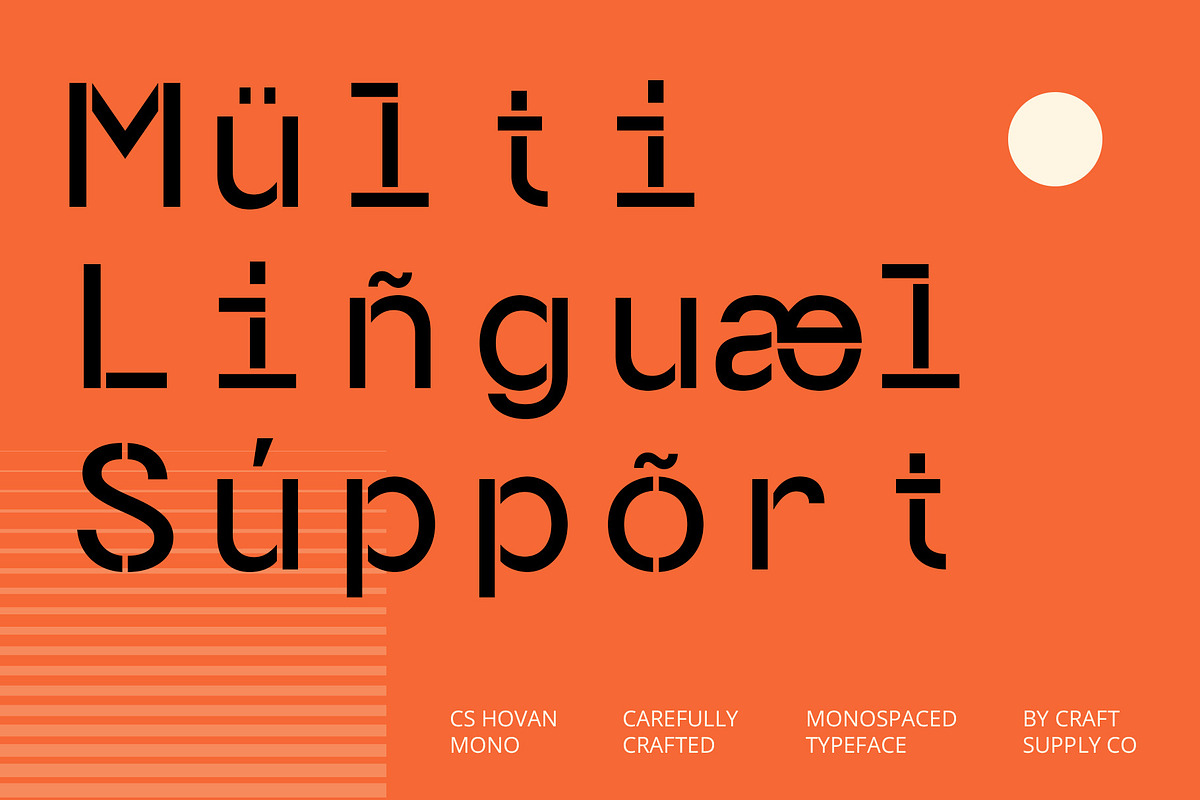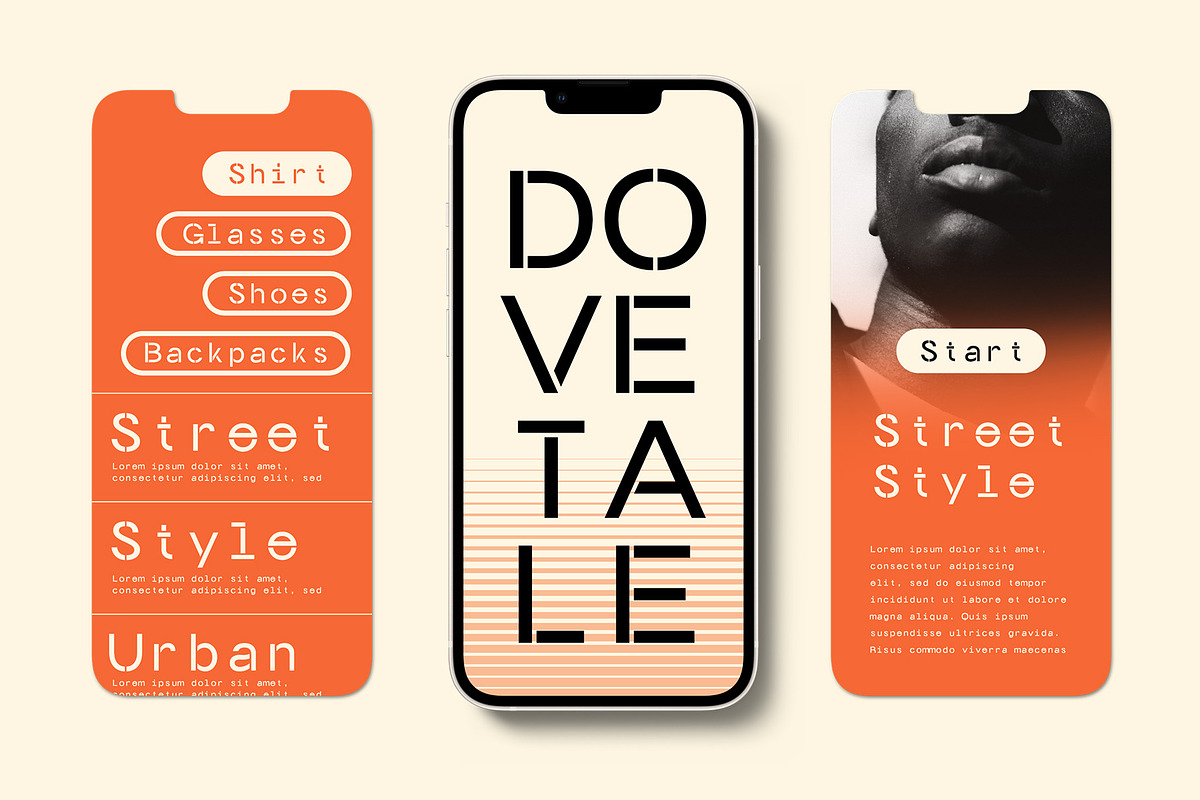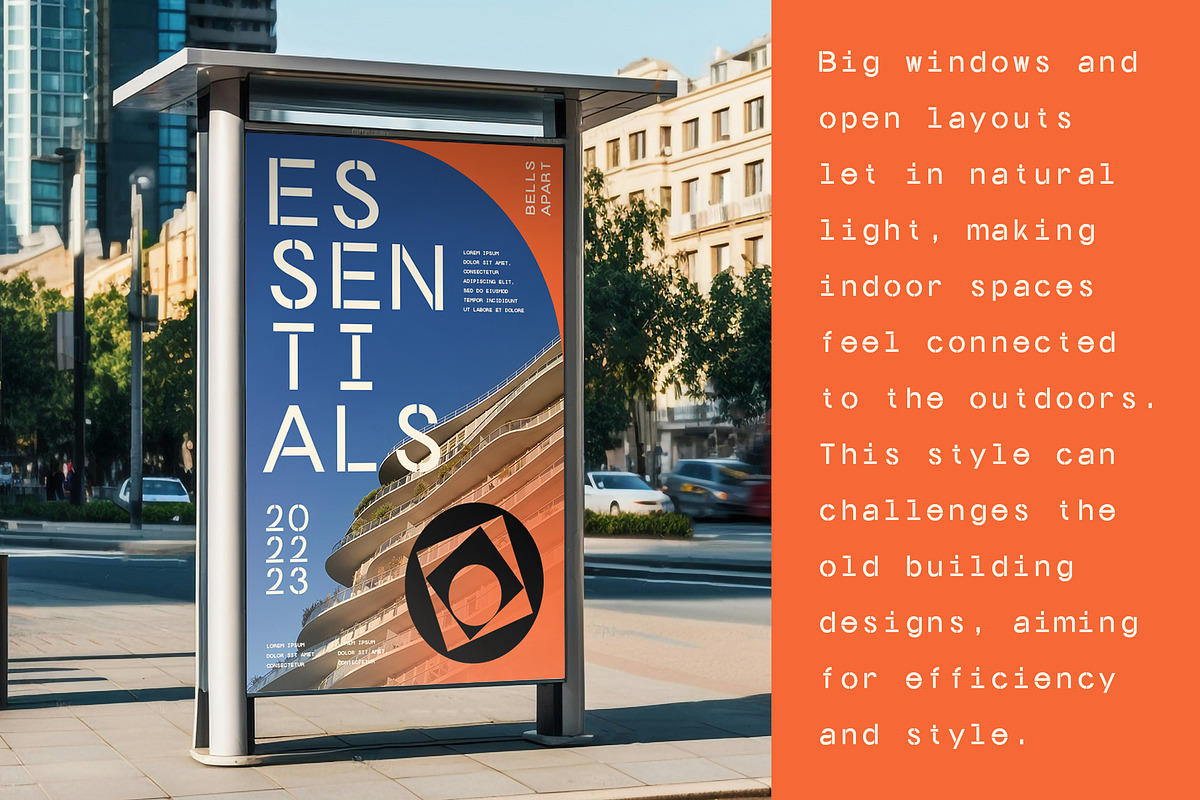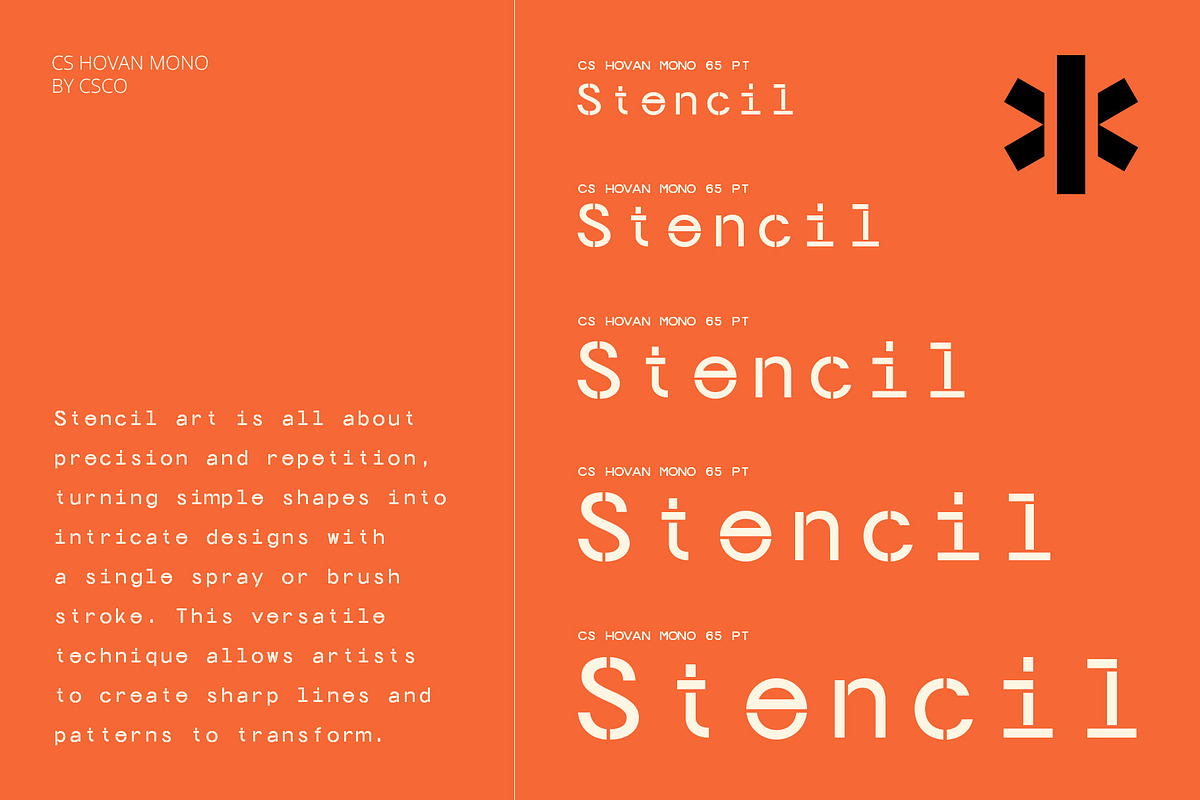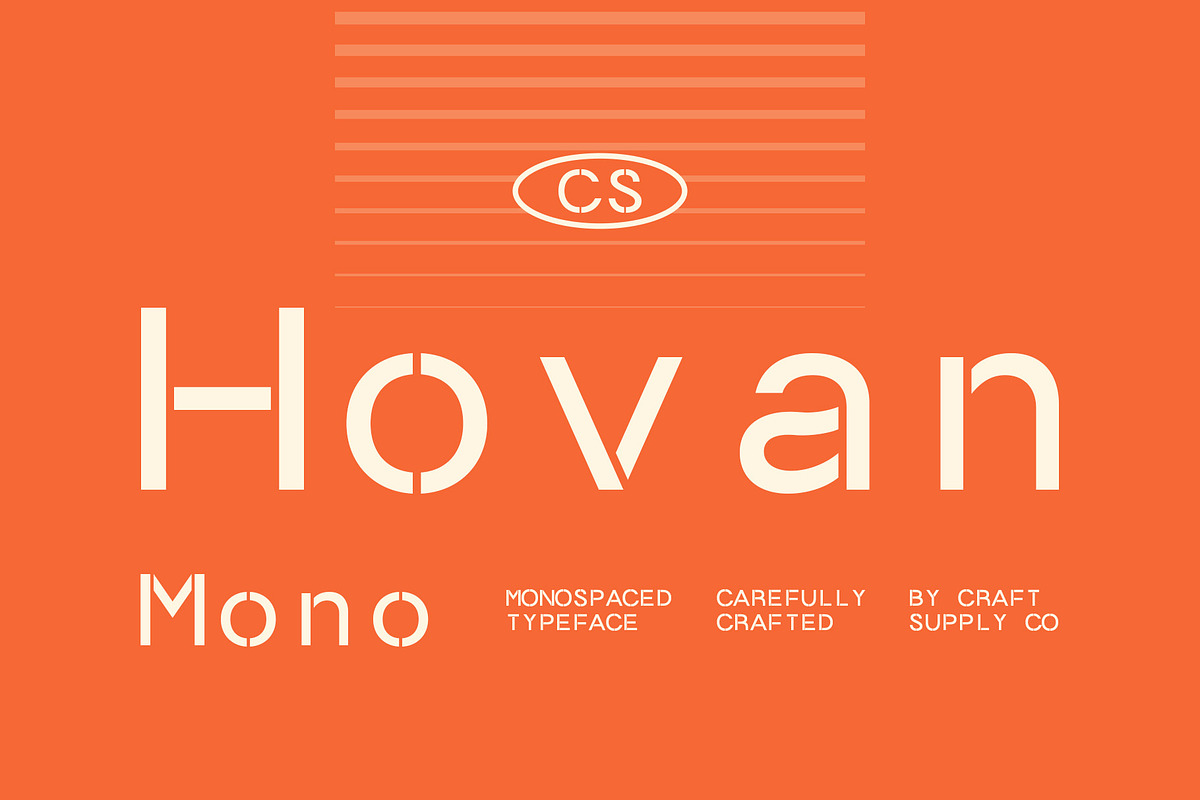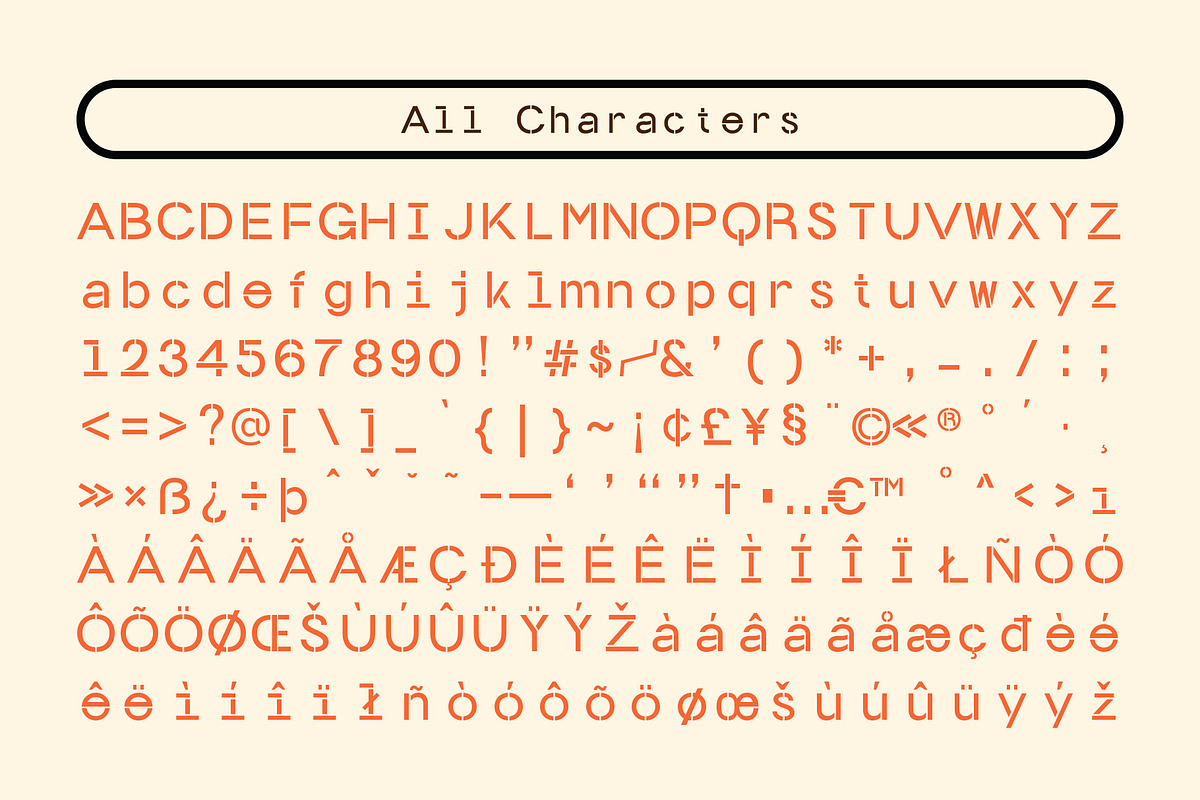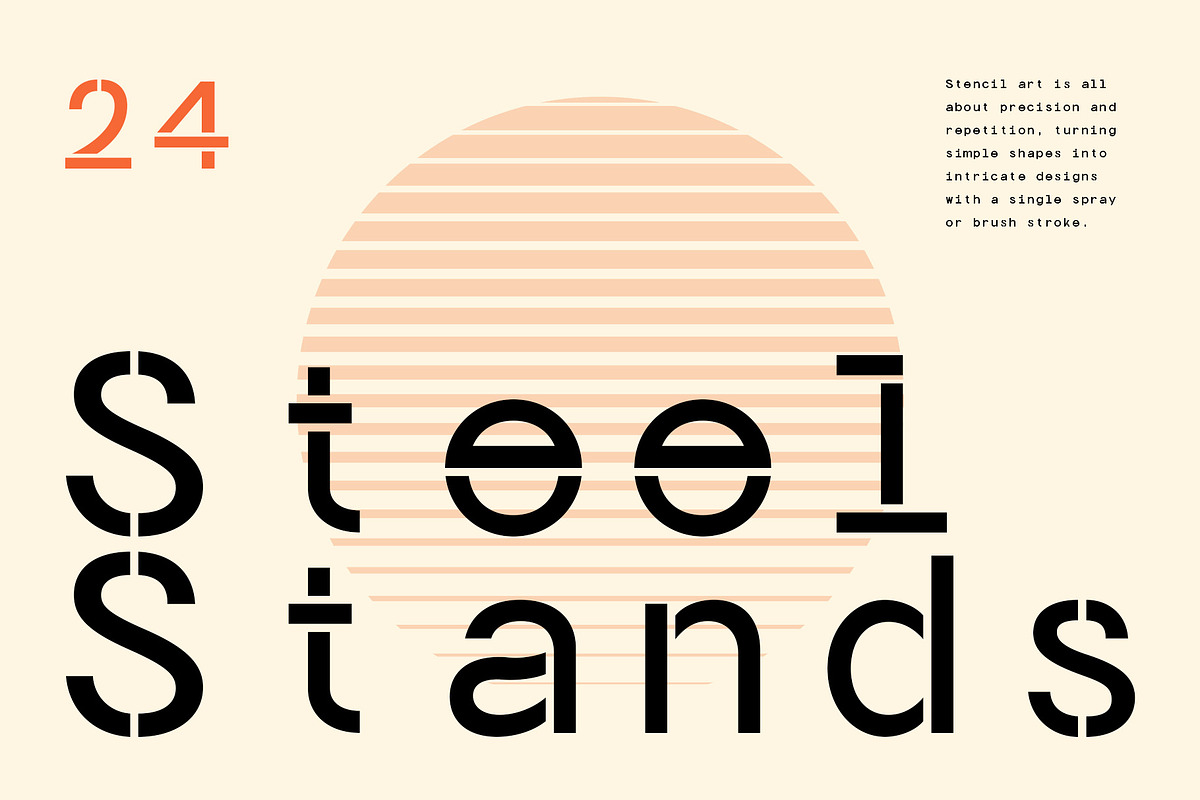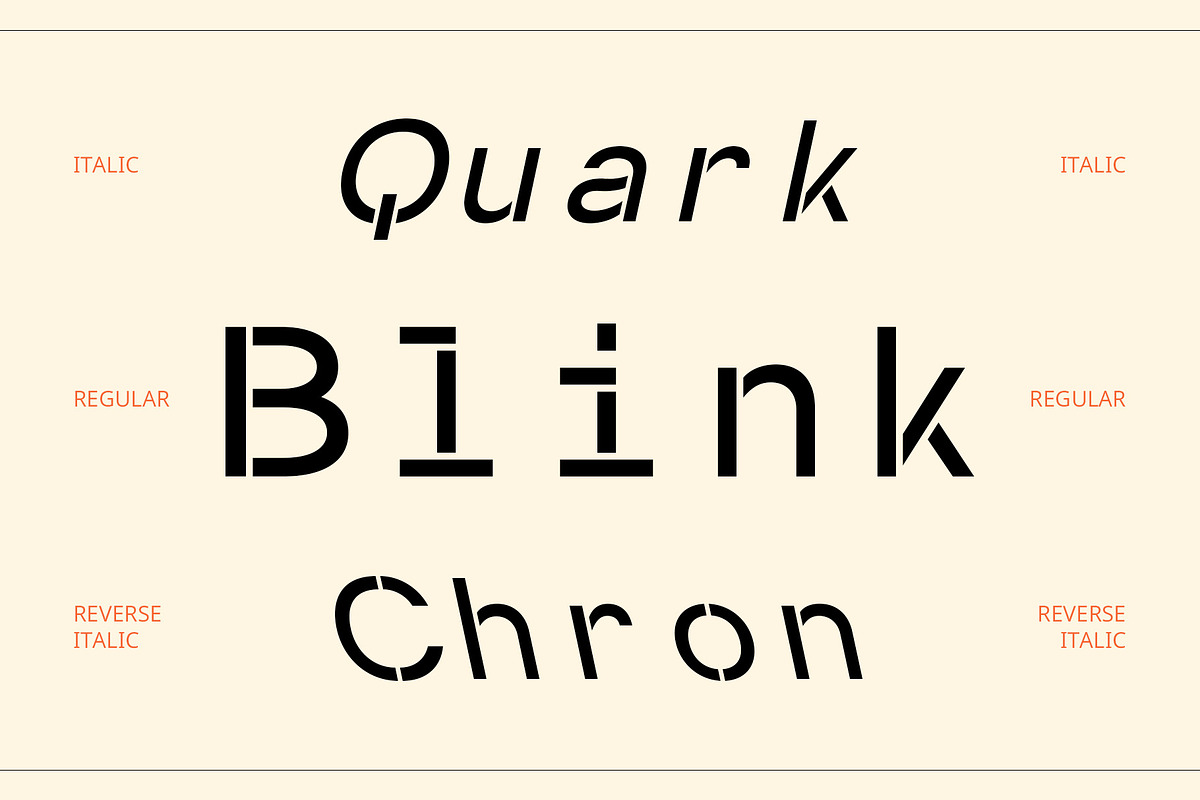
CS Hovan Mono – Monospaced Font
CS Hovan Mono: A Bold Monospaced Stencil Font
Stencil Design with Industrial Influence CS Hovan Mono is a modern sans-serif font that masterfully combines stencil and monospaced elements. The stencil design evokes a strong technical and industrial feel, with distinct cutouts that resemble printed or stamped letters. This creates a robust and bold aesthetic, perfect for designs that need to convey strength, precision, and a sense of ruggedness. The stencil element adds a touch of mechanized sophistication, making it ideal for projects with a tech-forward or industrial focus.
Monospaced Structure for Precision and Readability The monospaced design ensures that each character has equal width, creating a clean, tidy appearance that enhances readability and structure. This characteristic makes CS Hovan Mono especially suited for technical contexts like coding, programming, or documentation, where consistency and clarity are essential. The monospacing gives the font a sense of order, making it perfect for projects where precise alignment and uniformity are crucial.
Ideal for Technology and Industrial Design This versatile font is perfect for technology branding, software interfaces, and industrial design projects. The combination of the bold stencil design and monospaced structure provides a unique balance of form and function, making it ideal for both print and digital applications.